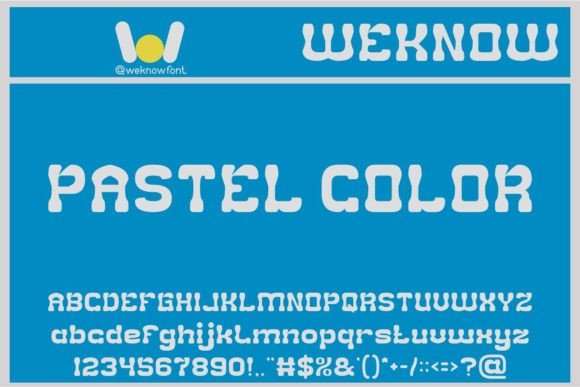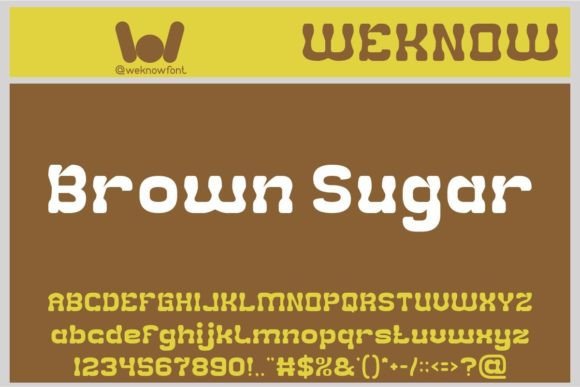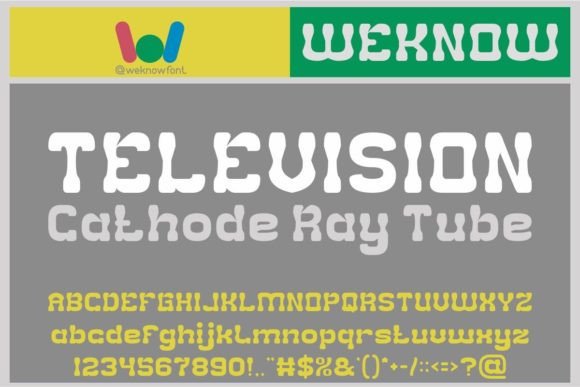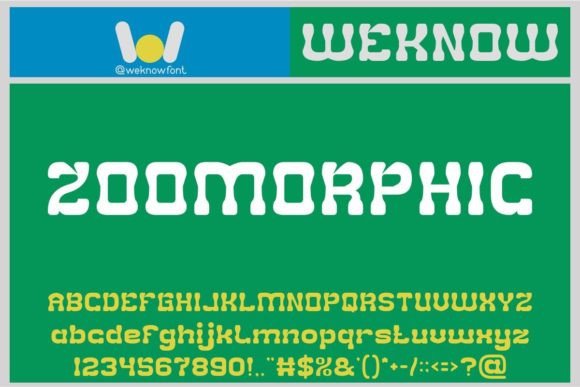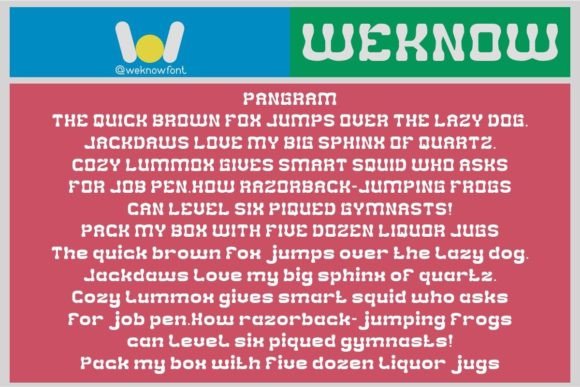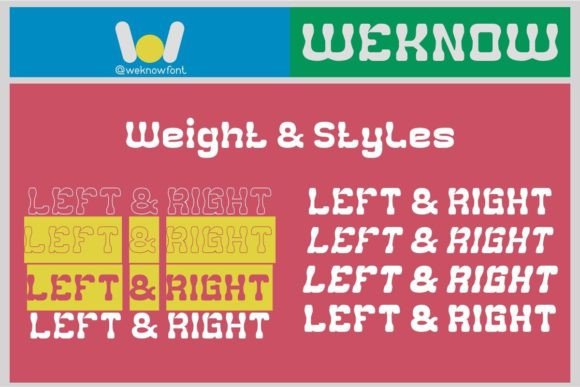
Introduction to Left and Right Font
Radiating modern elegance with a dash of vintage charm, Left and Right stands out as a fashionable slab serif display font.
Its innovative design showcases both contemporary appeal and classic sophistication, effortlessly fitting into your brand identity or corporate aesthetic Engage your audience with striking headlines when using Left and Right.
Key Features of Left and Right Font
Why Choose Left and Right Font?